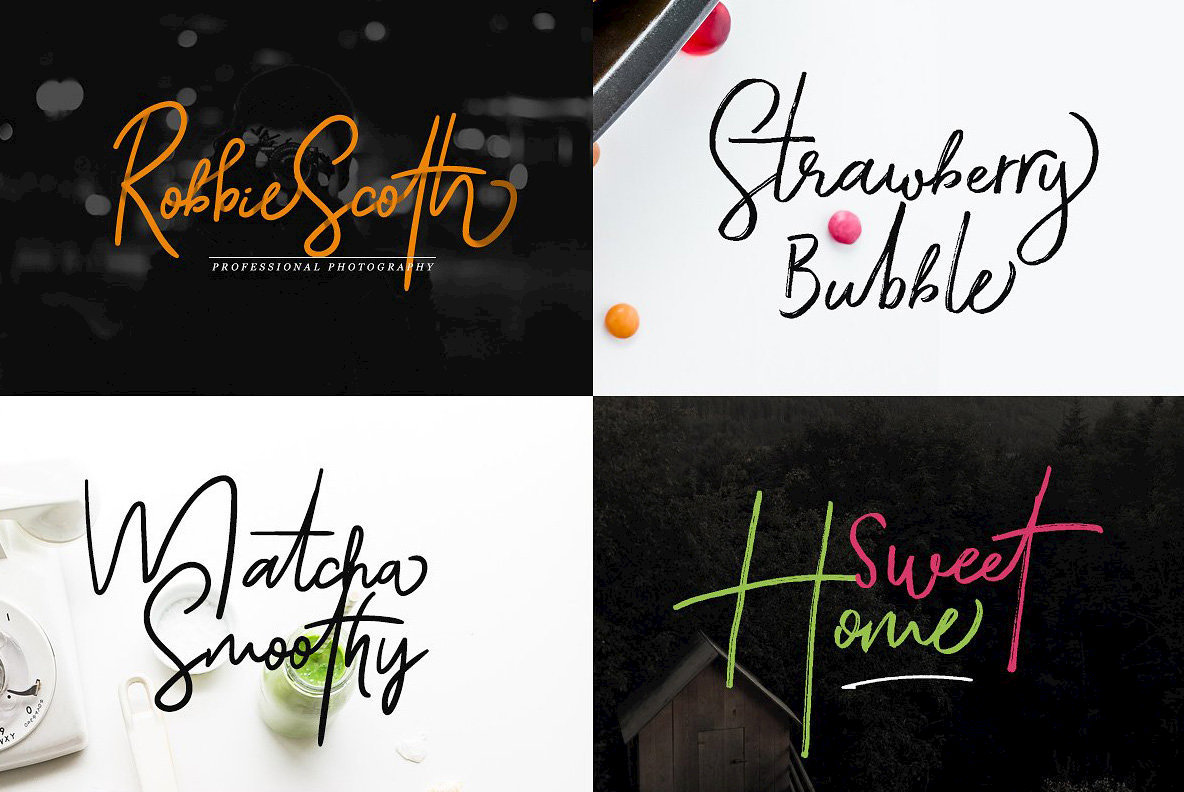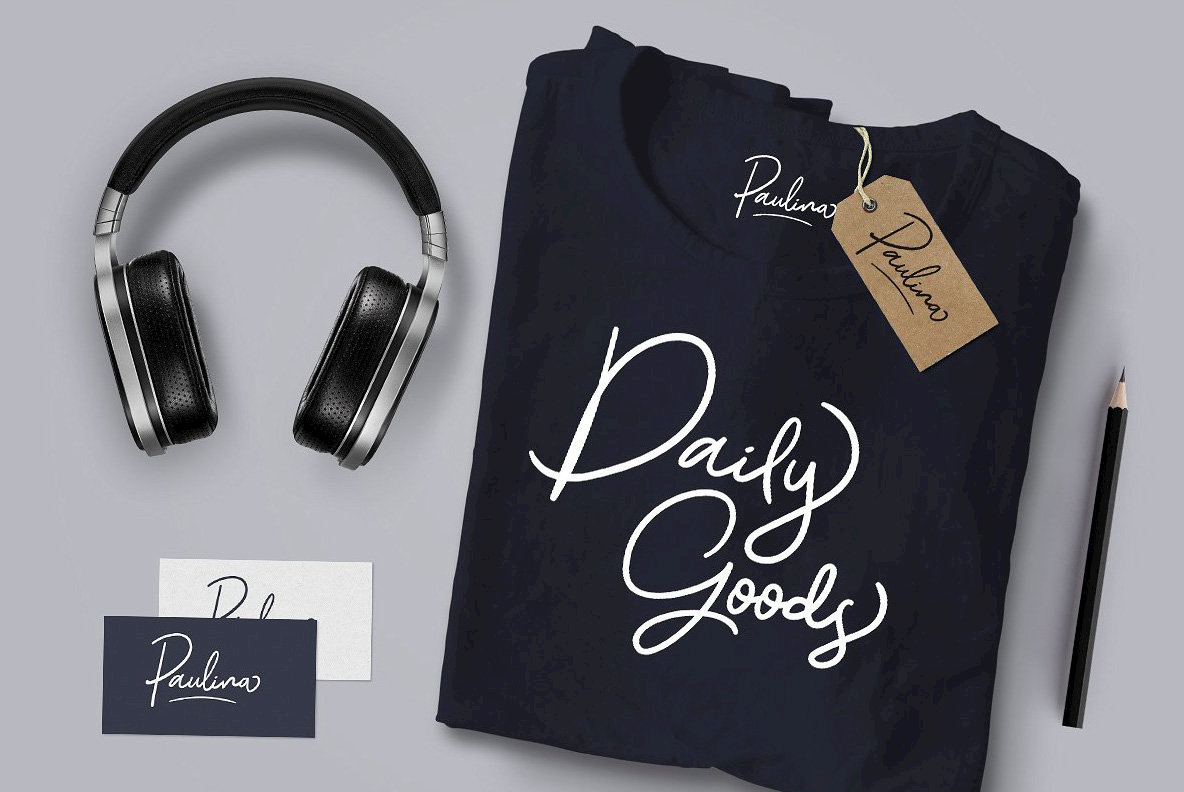
Gloriant Signature is an elegant and slightly distressed script design, published by Letterhend Studio. Gloriant Signature contains OpenType features such as ligatures, stylistic alternates, contextual alternates, and swashes.